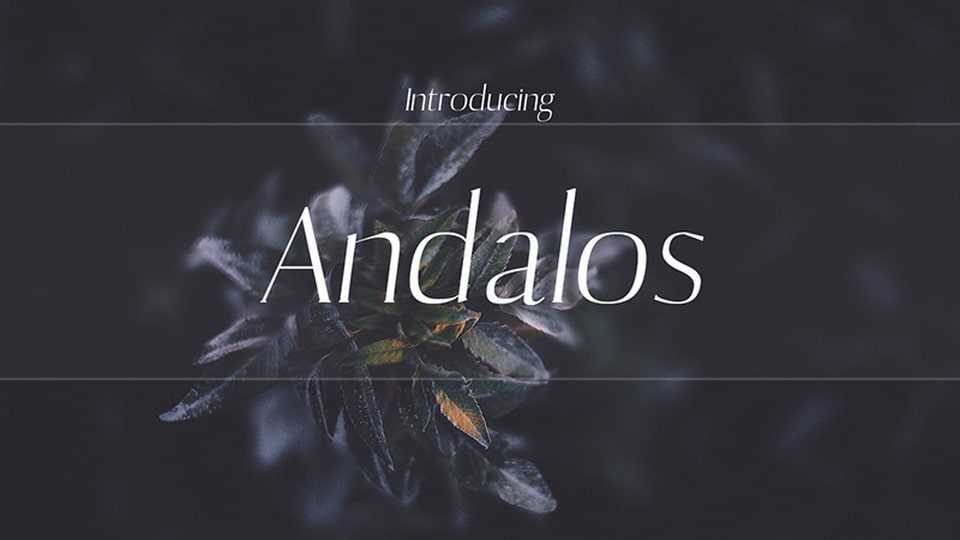
Download Andalos font, a wonderful typeface with a unique, detailed, and handmade look. Andalos font looks amazing in all caps with wide-set spacing for a classy appearance.
Designer: Eldamar Studio